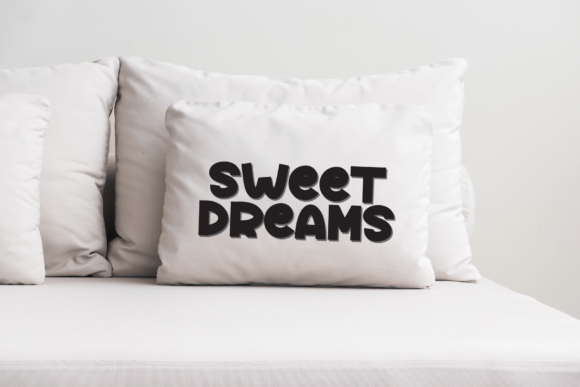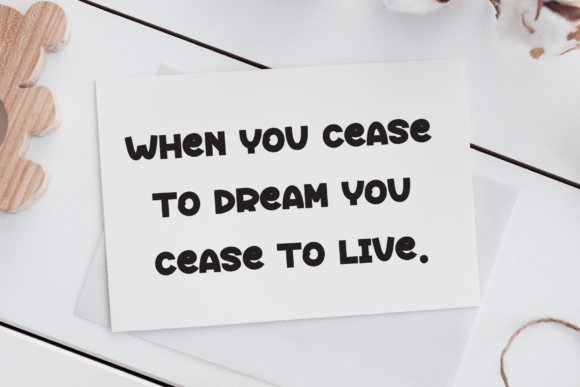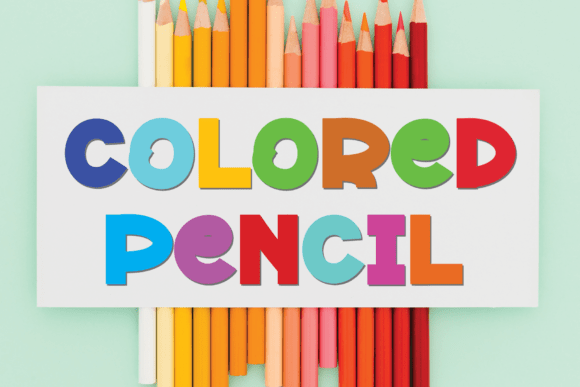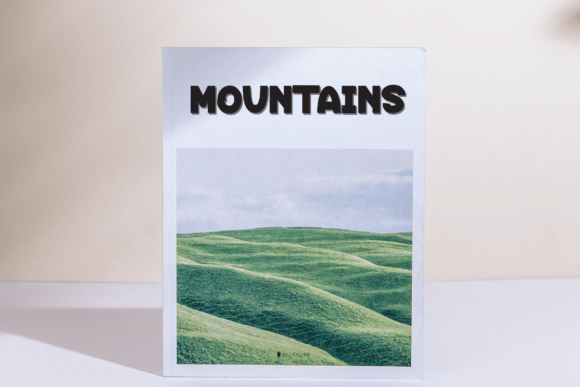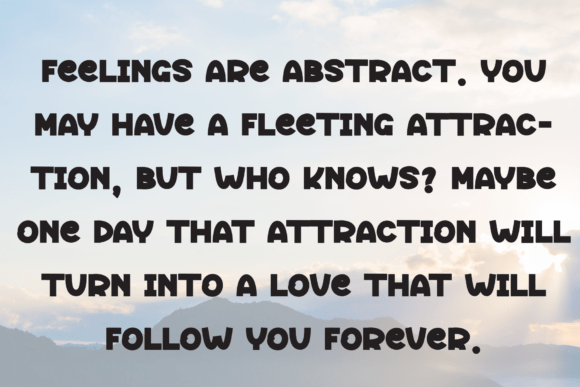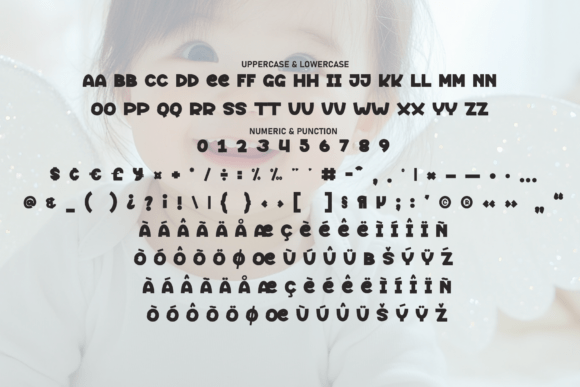
Discover the Sweet Charm of Baby Darling Font
There’s something special about holding your newborn baby in your arms for the first time – the gentle touch, the sweet smile, and the overwhelming love that fills your heart. As a designer, you might be thinking of how to capture that same sense of warmth and approachability in your projects. That’s where the Baby Darling Font comes in – a delightful display font designed to bring a sense of clarity and charm to your work.
With its clean structure and friendly style, the Baby Darling Font is perfect for branding, headlines, and everyday designs. Its balanced letterforms offer unparalleled readability and a genuine, inviting feel that makes every message feel special. Whether you’re a seasoned designer or just starting out, the Baby Darling Font is a valuable addition to your toolkit – and a great way to add a touch of personality to your projects.
Baby Darling Font Key Features
- Font Family: Baby Darling, Baby Darling Italic
- Unique Characteristics: Whimsical, hand-drawn style, perfect for children’s books, nursery decor, and family-themed designs
- Language Support: Supports multiple languages, including Latin-based languages and Cyrillic
Baby Darling Font Review
Overall, I think the Baby Darling Font is a cute and playful addition to any design project. Here are a few things that stand out to me:
- ✨ The rounded edges and soft curves give the font a charming, childlike feel that’s perfect for designs targeting a younger audience.
- ✨ The font comes in a variety of weights and styles, making it easy to customize and adapt to different design needs.
- ✨ The font is highly legible, even at smaller font sizes, making it a great choice for body text or other large blocks of copy.
- ⚠️ The font can feel a bit too “cute” or “kiddie” for some designs, which may not be suitable for more mature or serious audiences.
- ⚠️ The font may not be the best choice for designs that require a lot of technical or scientific content, as the playful feel may detract from the seriousness of the subject matter.
Overall, I think the Baby Darling Font is a solid choice for designs that require a lighthearted or whimsical feel. While it may not be suitable for every project, it’s a great addition to any designer’s toolkit.
Tips for Getting the Most Out of the “Baby Darling Font”
Experiment with different font sizes, colors, and styles to create a unique look.
Pair the “Baby Darling Font” with other fonts or graphics to add visual interest.
Use the font to create a cohesive brand identity or to add a touch of whimsy to your designs.
Alternatives to Baby Darling Font
Great Vibes Font is a beautiful, elegant script font that’s perfect for creating a whimsical and romantic atmosphere. It’s ideal for wedding invitations, baby announcements, and other special occasions where you want to convey a sense of love and happiness.
Compared to Baby Darling Font, Great Vibes Font has a more flowing and cursive feel, making it better suited for longer text passages. However, both fonts share a similar vintage and feminine aesthetic.
Carolyna Pro Font is a modern, sophisticated script font that’s great for creating a sense of luxury and elegance. It’s perfect for branding, packaging, and other design projects where you want to convey a sense of high-end quality.
Compared to Baby Darling Font, Carolyna Pro Font has a more refined and polished look, making it better suited for corporate and business applications. However, both fonts share a similar level of sophistication and elegance.